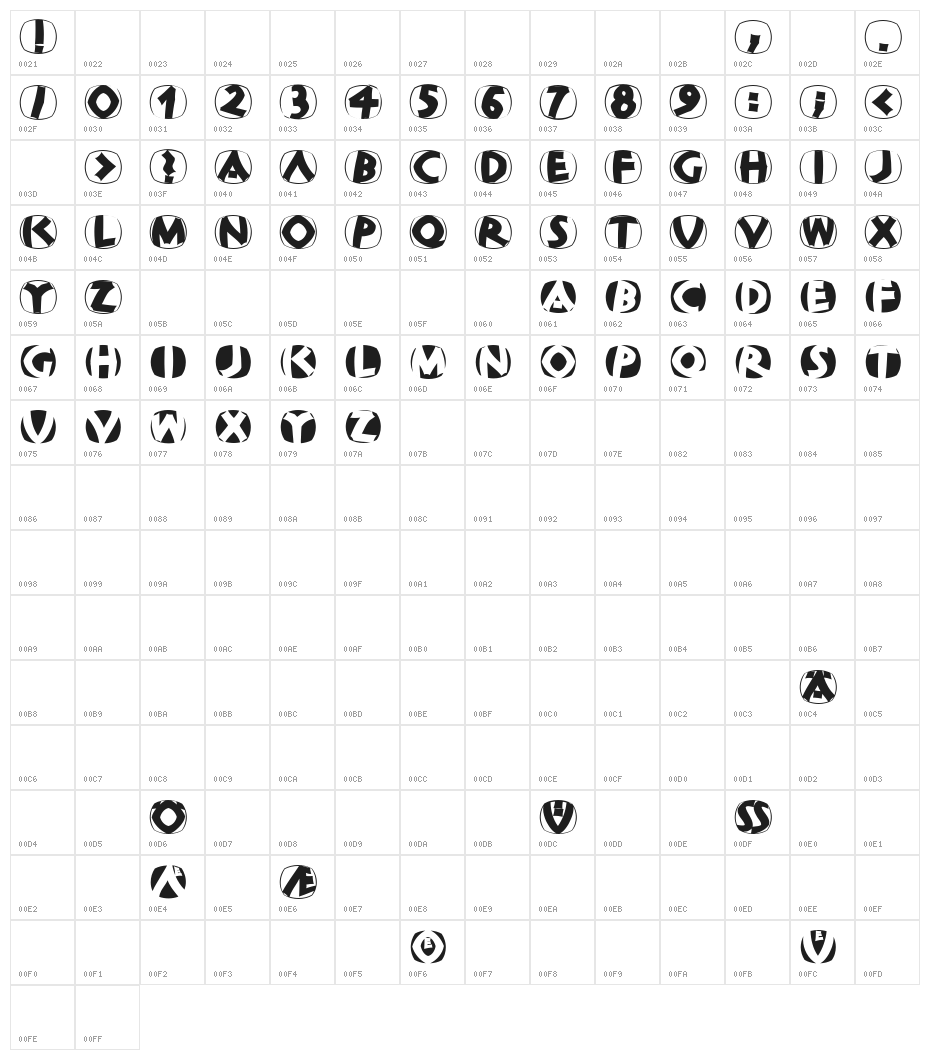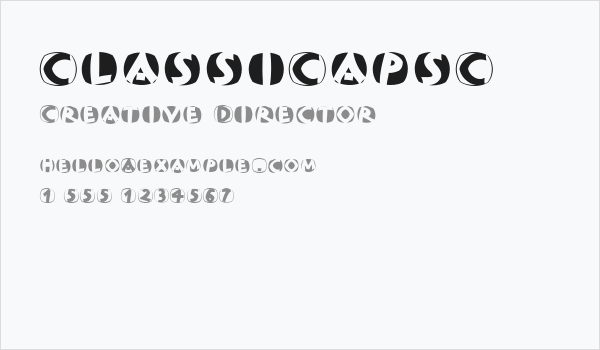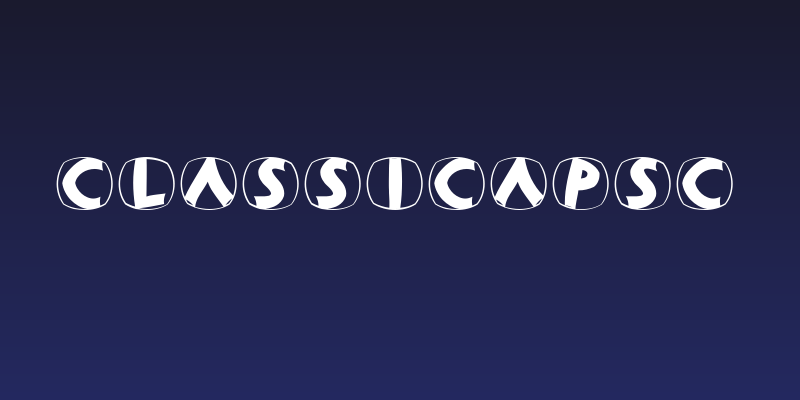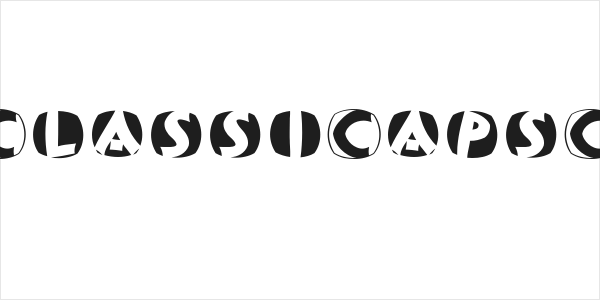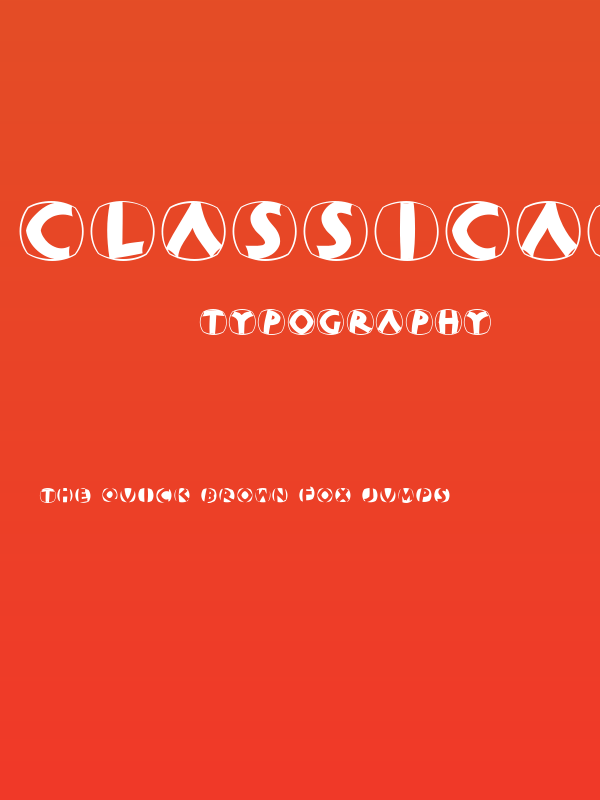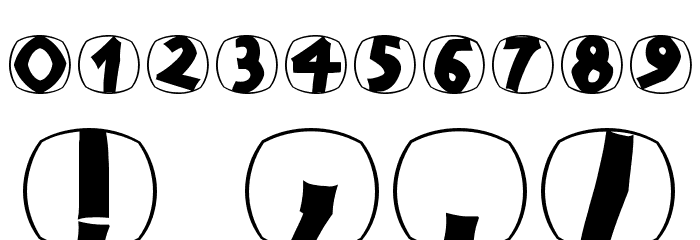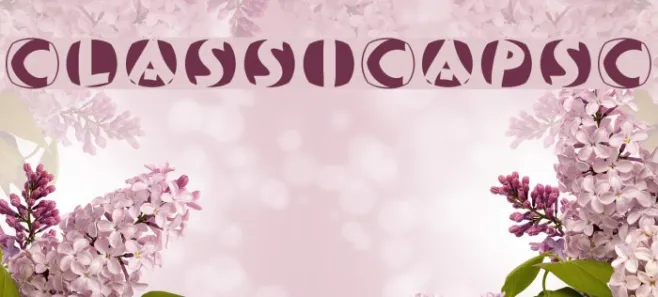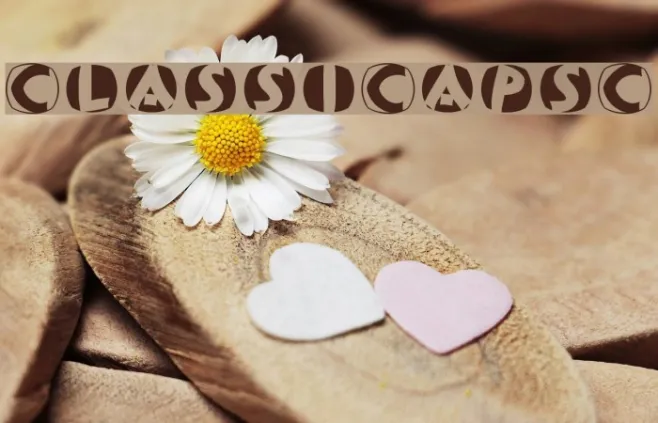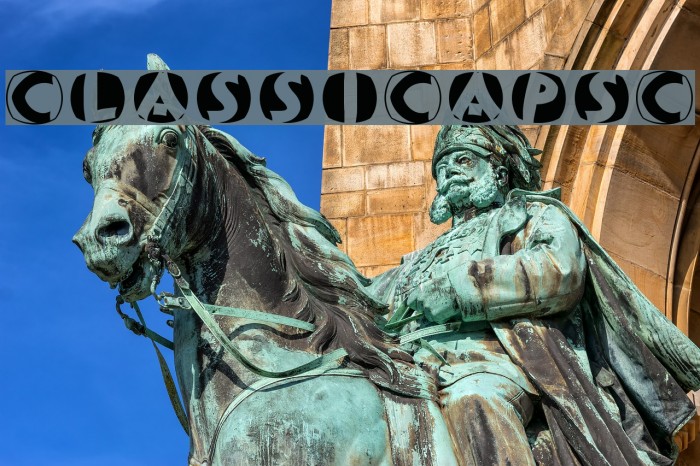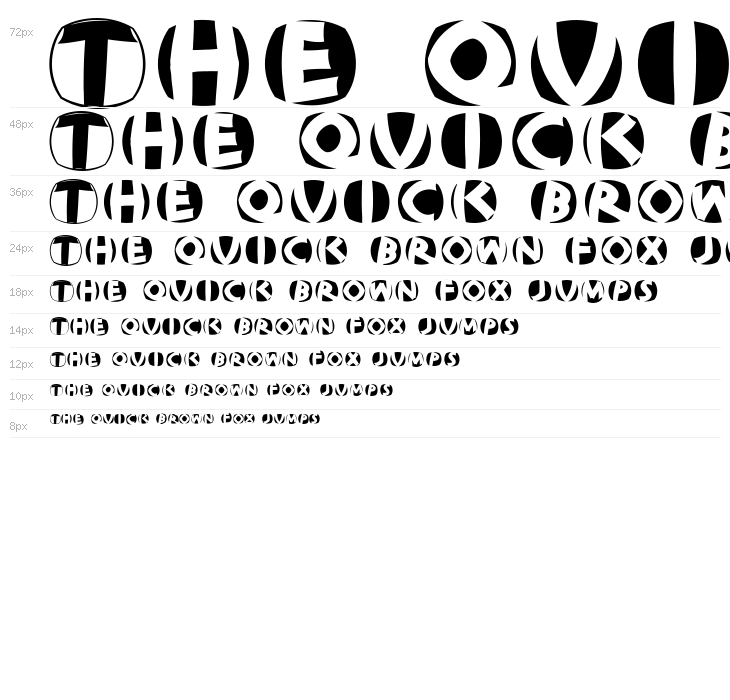
ClassiCapsC Font
ClassiCapsC Description
This font features a unique and bold design where each character is encased in a circular shape, creating a striking visual impact. The letters are stylized with a high contrast between thick and thin strokes, giving them a dynamic and modern appearance. The uppercase and lowercase letters maintain a consistent style, with the numbers and special characters following suit. The overall look is playful yet sophisticated, making it suitable for creative projects that require a distinctive and eye-catching typeface.